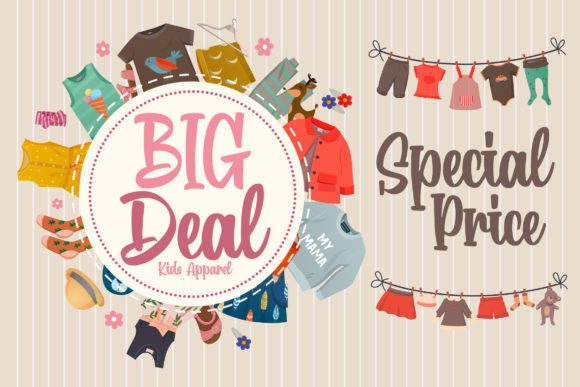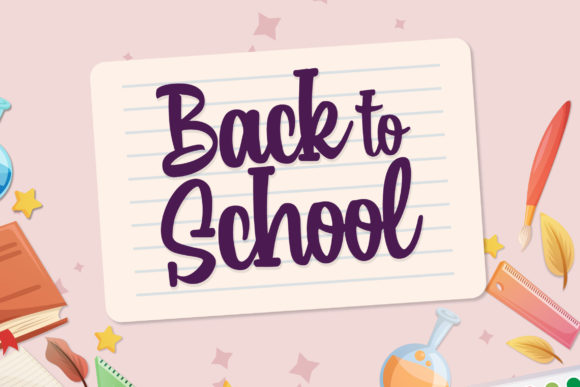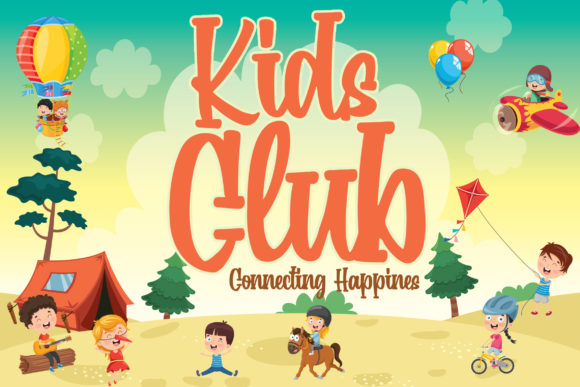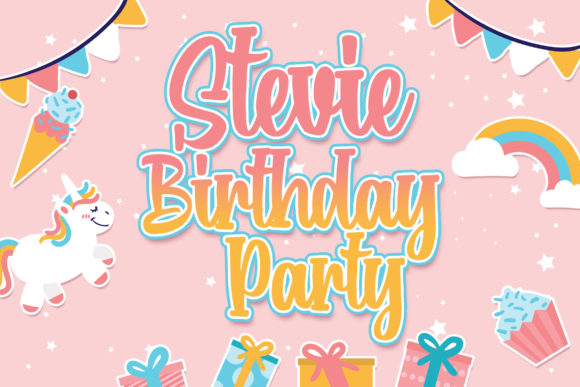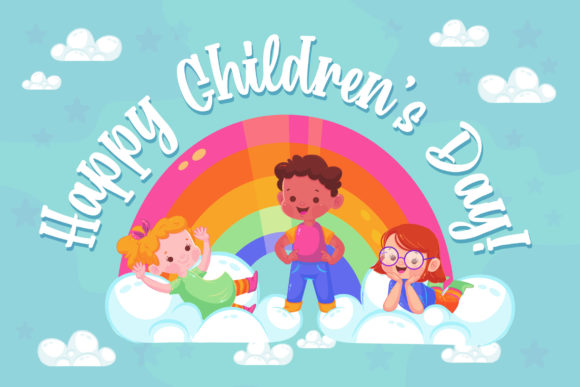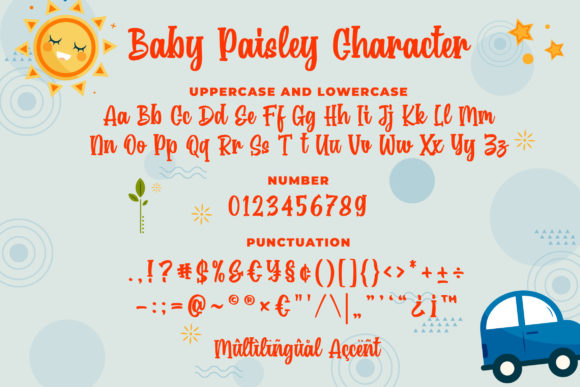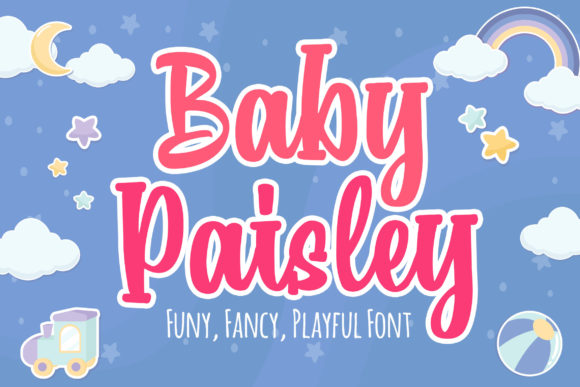
Baby Paisley Font: A Fun and Playful Display Font for Your Creative Projects
Baby Paisley is a fun and playful display font that can add a touch of whimsy and personality to your designs. With its unique and eye-catching style, this font is perfect for creatives who want to make their ideas more realistic and create spectacular designs. In this article, we’ll explore the features and benefits of Baby Paisley Font, and how you can use it to take your designs to the next level.
What is Baby Paisley Font?
Baby Paisley Font is a display font designed to make a statement. Its playful and fun style is inspired by the classic paisley pattern, but with a modern twist. The font features bold lines, curly swashes, and a carefree vibe that’s perfect for designs that need a bit of personality. Whether you’re working on a logo, a poster, or a social media graphic, Baby Paisley Font is sure to grab attention and leave a lasting impression.
Key Features of Baby Paisley Font
- Unique and eye-catching style: Baby Paisley Font has a distinctive look that’s sure to stand out from the crowd. Its playful and curly design makes it perfect for designs that need a bit of whimsy and personality.
- High-quality design: The font is designed with high-quality craftsmanship in mind, ensuring that it looks great in any size or resolution.
- Versatile: The font can be used for a wide range of design projects, from logos and posters to social media graphics and more.
Benefits of Using Baby Paisley Font
So why should you use Baby Paisley Font in your designs? Here are just a few benefits of this amazing font:
- Adds personality to your designs: Baby Paisley Font is a great way to add a bit of personality and whimsy to your designs. Its playful style is sure to make your designs stand out from the crowd.
- Creates a lasting impression: The font’s unique and eye-catching style is sure to grab attention and leave a lasting impression on your audience.
- Perfect for creative projects: Baby Paisley Font is perfect for designers who want to add a bit of creativity and flair to their projects. Its playful style is sure to inspire and delight.
How to Use Baby Paisley Font
Using Baby Paisley Font is easy! Here are a few tips to get you started:
- Choose the right size: Baby Paisley Font is designed to be used at larger sizes, so choose a size that’s big enough to make an impact.
- Experiment with colors: The font looks great in a wide range of colors, so don’t be afraid to experiment and find the perfect hue for your design.
- Pair with other fonts: Baby Paisley Font pairs well with other fonts, so try combining it with a simpler font to create a striking contrast.
Design Ideas Using Baby Paisley Font
So what can you create with Baby Paisley Font? Here are a few design ideas to get you started:
- Logos and branding: Use Baby Paisley Font to create a unique and eye-catching logo that reflects your brand’s personality.
- Posters and flyers: The font is perfect for creating eye-catching posters and flyers that grab attention and leave a lasting impression.
- Social media graphics: Use Baby Paisley Font to create social media graphics that stand out from the crowd and engage your audience.
- Crafting and DIY projects: The font is also perfect for crafters and DIY enthusiasts who want to add a personal touch to their projects.